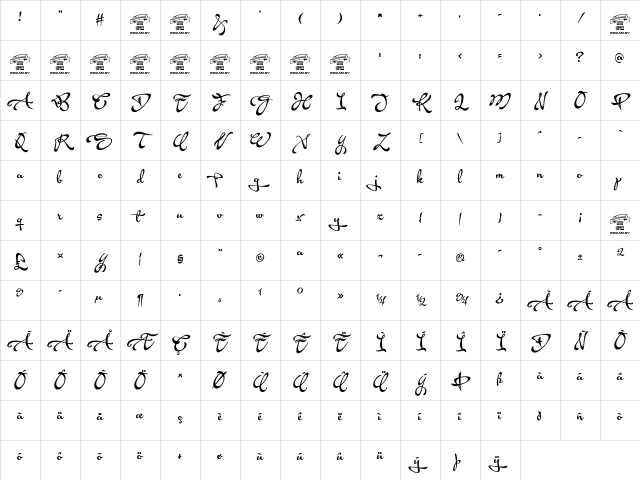
Acryle Script Personal Use Regular
Foundry: M￿ Greb￿
Designer: M￿ Greb￿
Design Context for Acryle Script Personal Use
Acryle Script Personal Use flows with the natural rhythm of handwritten lettering, making it ideal for designs that call for warmth and personal expression.
Font Pairing: Combine Acryle Script Personal Use with a simple geometric sans for maximum contrast - the tension between flowing curves and clean structure is a classic typographic pairing.
Pro Tip: Use Acryle Script Personal Use for short runs of text - names, titles, or taglines. Extended body copy in script faces tires the eye quickly.